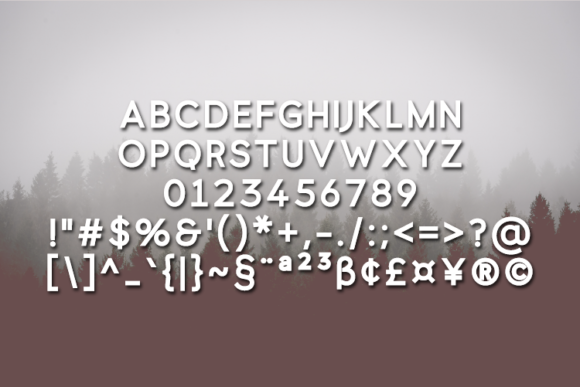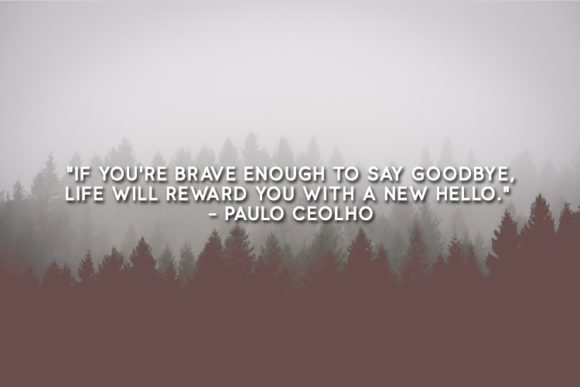
Introduction to Mostech Font
Imagine you’re brainstorming ideas for a new branding project, and suddenly, the perfect font pops into your mind. It’s clean, modern, and effortlessly conveys the message you want to share with your audience. That’s exactly what the Mostech Font is all about – creating a lasting impression with its sleek design and versatility.
For designers, having access to a high-quality font like Mostech Font is invaluable. It’s perfect for a wide range of creative projects, from product packaging to magazine covers, and even social media graphics. With its simple sans serif design, it’s easy to use and can be easily customized to fit any theme or style. Plus, it’s free to download, making it an excellent design resource for both beginners and professionals.
Key Features of Mostech Font
- Unique, modern design aesthetic with a focus on clean lines and geometric shapes, making it perfect for contemporary creative projects.
Honest Review: Mostech Font
As a designer, I’ve had the chance to work with a wide range of fonts, but the Mostech Font has been a standout for me. When I first downloaded it for free, I was excited to see how it would perform in my creative project.
- High-quality design: The Mostech Font has a sleek and modern feel to it, making it perfect for any design project.
- Limited font styles: While the Mostech Font is high-quality, it only comes in a limited range of styles, which may not be suitable for every design project.
- Not ideal for complex designs: Due to its minimalist design, the Mostech Font may not be the best choice for complex or intricate designs.
Overall, the Mostech Font is a great design resource for any creative project. While it has its limitations, it’s a high-quality font that’s perfect for simple and modern designs. I’d definitely recommend it to other designers looking for a reliable and stylish font.
How to Use Mostech Font
Tips for Getting the Most Out of Mostech Font
Use the Mostech Font on a transparent background to create a clean and minimalist design. Experiment with different font sizes and styles to add depth and visual interest to your creative project.
The Mostech Font is ideal for creative projects that require a sophisticated and elegant design, such as:
- Business cards and stationery
- Marketing materials and brochures
- Web design and e-commerce platforms
- Printed materials and packaging